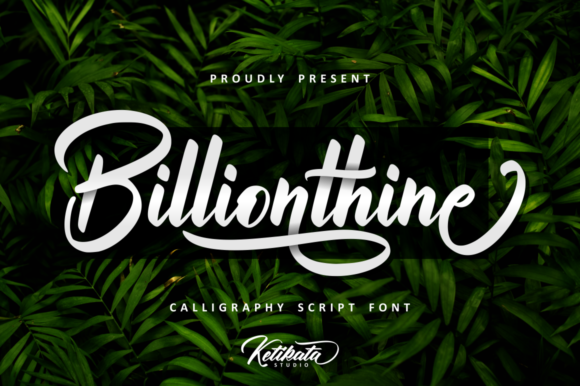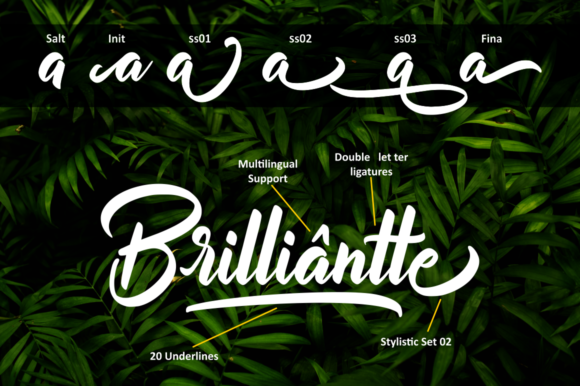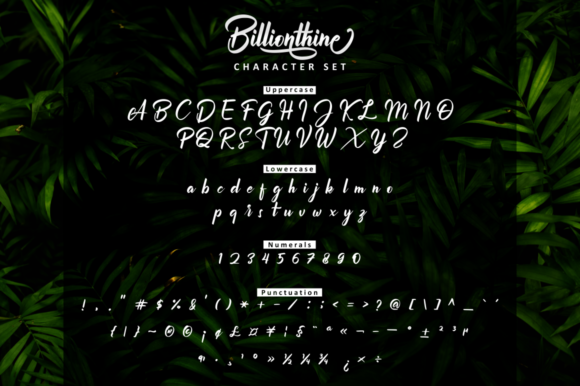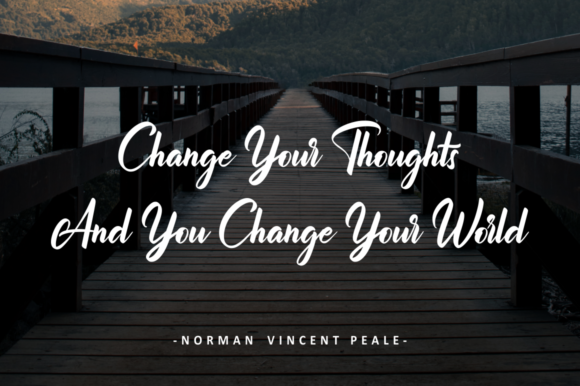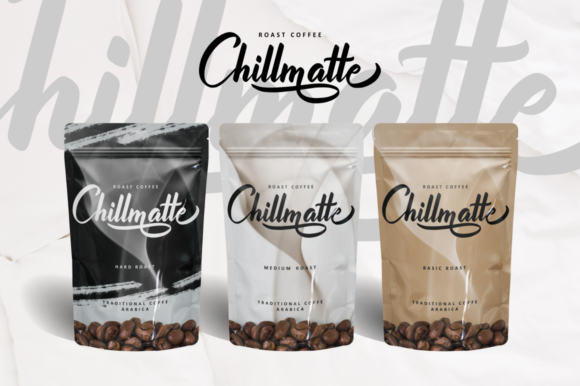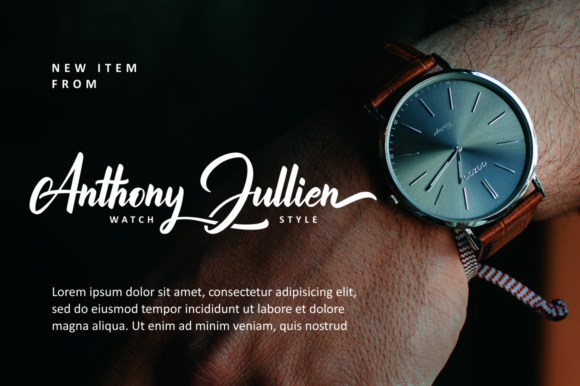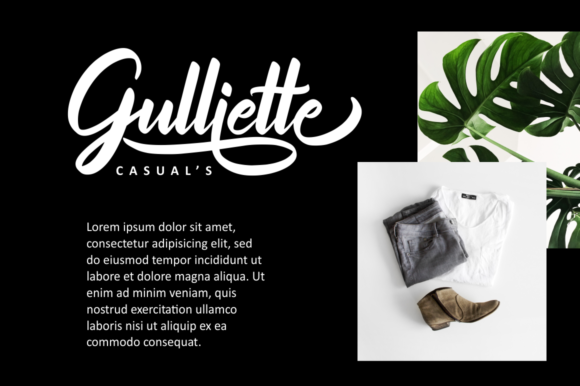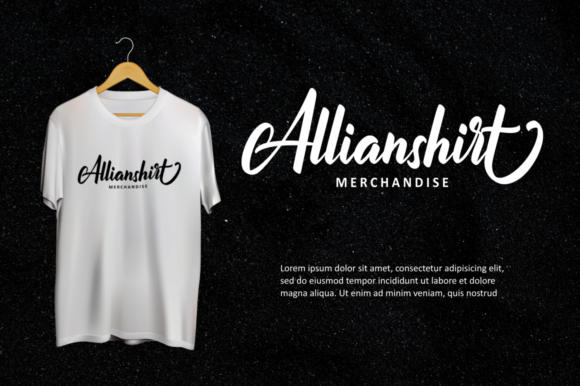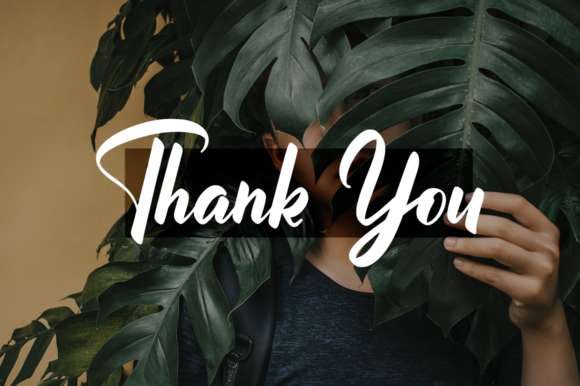
Billionthine Script Font
About Billionthine Script Font
Billionthine is a bold and beautiful handwritten font with an incredibly authentic feel. This unique font will effortlessly turn any design project into a stand out!